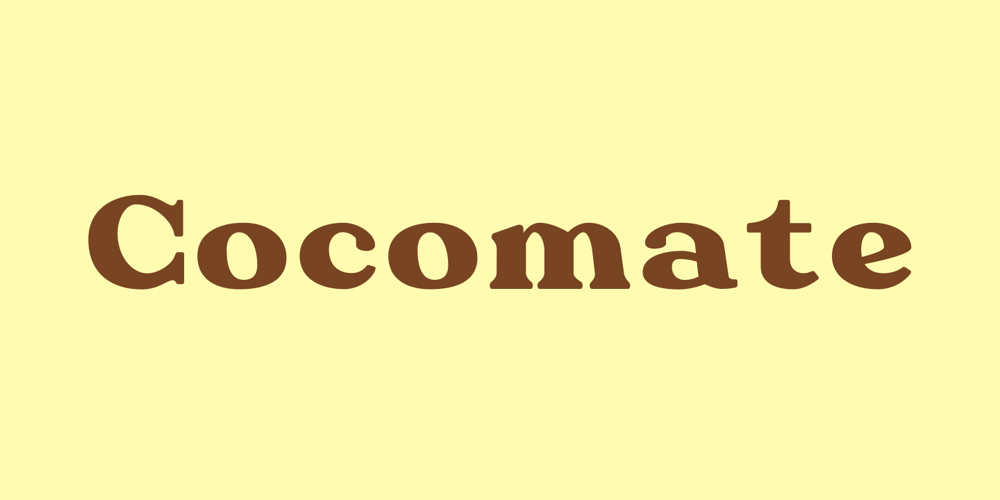
Cocomate Font Family was designed by Arief Rochman and published by 4RM Font. Cocomate contains 1 styles and family package options. Inspired by classic art, the cocomate font is the epitome of beauty and strong authenticity that is embodied in the art of typography. made with the characteristic variations of italic contrast and bold size in the letters. suitable for use in graphic designs such as logos, labels, packaging and others.